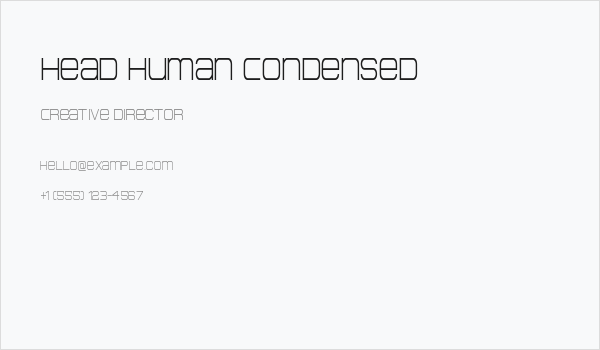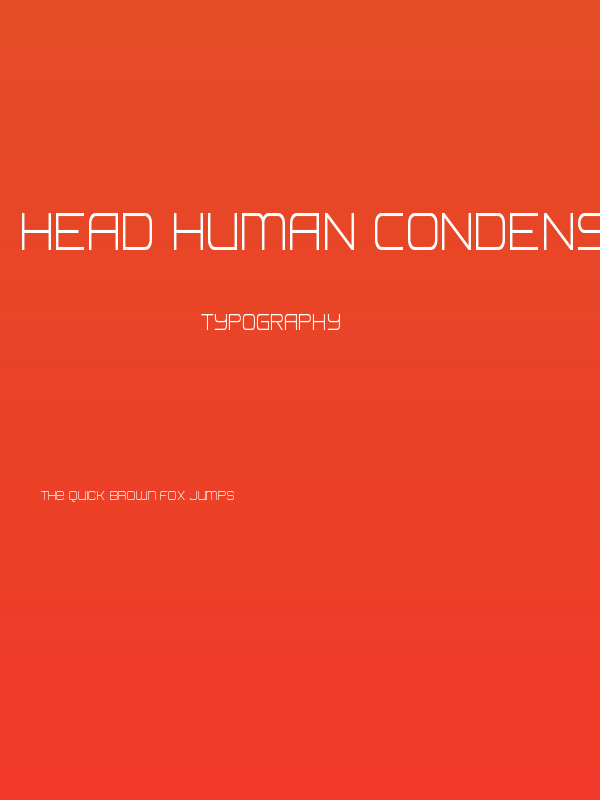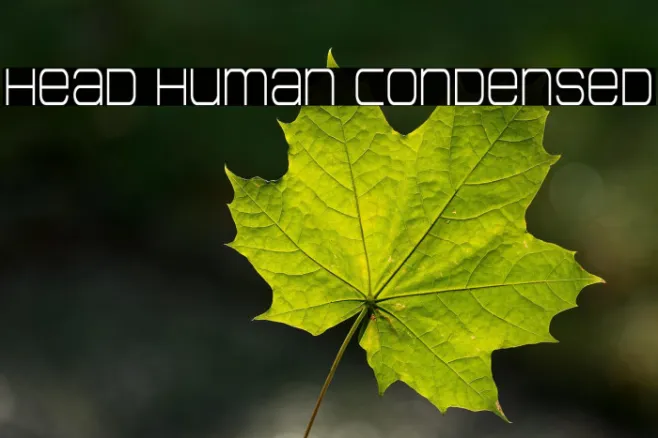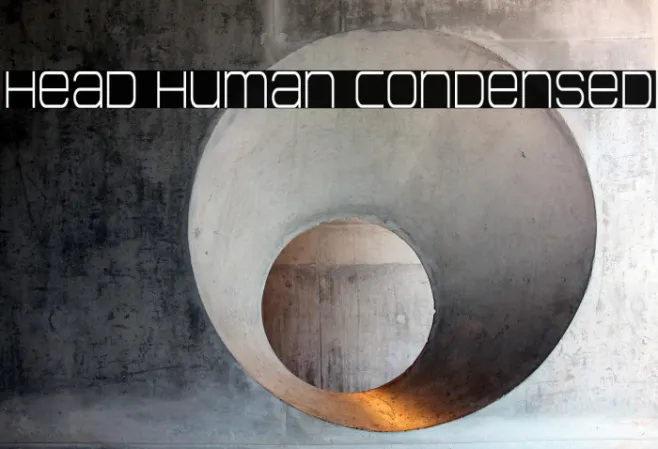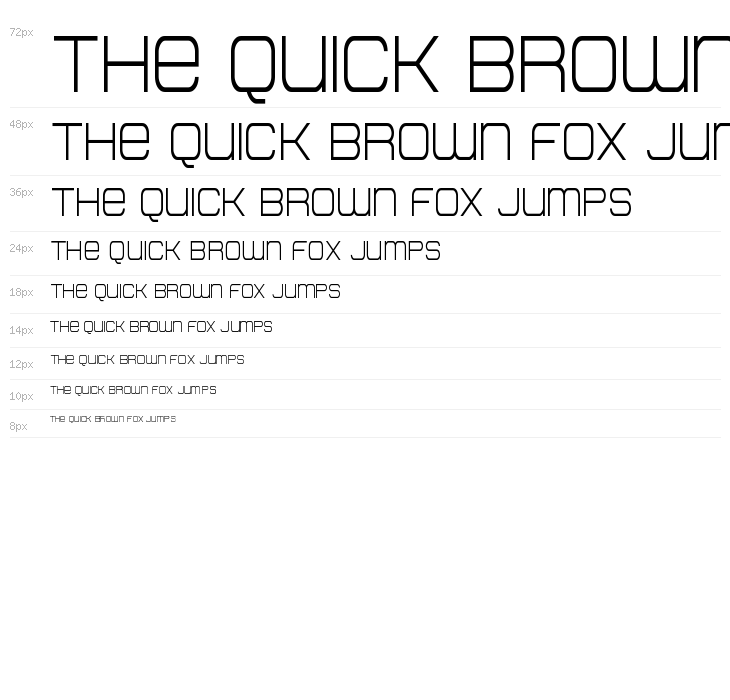
Head Human Condensed Font
Head Human Condensed Description
This font features a modern, geometric design with a condensed structure. The characters are formed with clean, straight lines and rounded edges, creating a futuristic and technical appearance. The uppercase and lowercase letters maintain a consistent height, contributing to a uniform look. The numerals and special characters follow the same design principles, ensuring a cohesive style throughout. The font's minimalistic approach makes it suitable for contemporary design projects where clarity and precision are essential.
| Use Case | Headlines, Logos, Digital interfaces |
| Proposed Projects | Ideal for technology branding, futuristic posters, digital interfaces, and minimalist graphic design. |